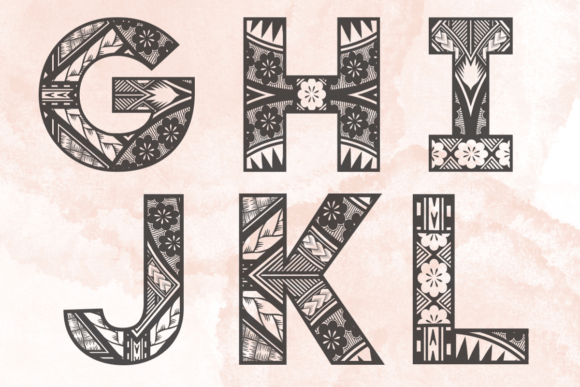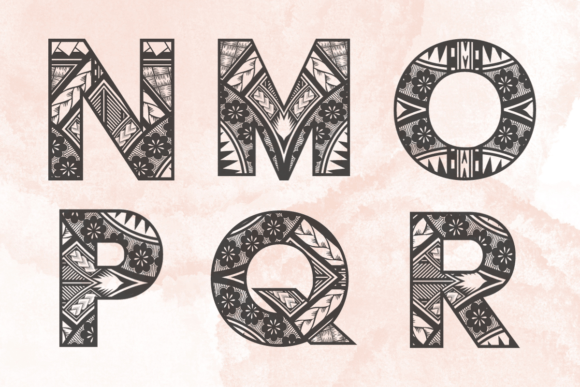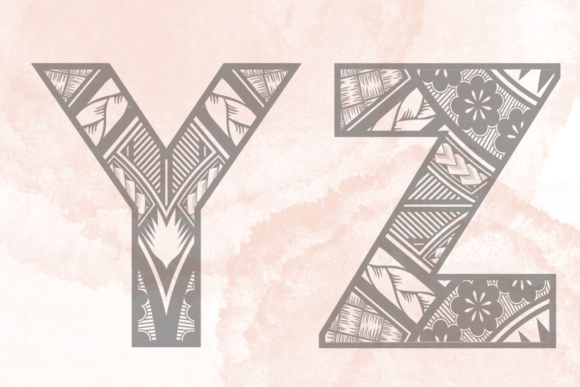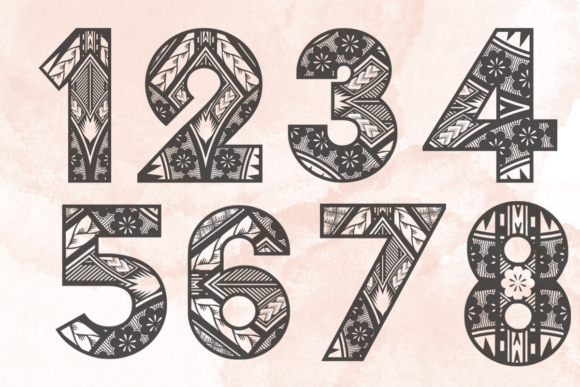
Introduction to Polynesian Tribal Font
Have you ever been working on a creative project and stumbled upon the perfect design element that elevates your entire concept? For designers, this moment can be a game-changer. It’s the spark that ignites a new idea, the missing piece that ties everything together. For me, this moment came when I discovered the Polynesian Tribal Font – a stunning, bold typeface that captures the essence of Pacific Island cultures.
The Polynesian Tribal Font is more than just a design resource; it’s a key to unlocking a world of creative possibilities. With its high-quality, intricately carved shapes and patterns, this font is perfect for designers looking to add a touch of Polynesian flair to their projects. Whether you’re working on a travel brochure, a website, or a social media campaign, this font is sure to make your design stand out. And the best part? It’s available for free download, making it an invaluable asset for any designer looking to elevate their creative projects.
As a valuable design resource, the Polynesian Tribal Font is ideal for designers who want to add a unique and exotic touch to their work. With its transparent background and versatile design, this font can be used on a variety of creative projects, from logo designs to web graphics. And with its high-quality design, you can rest assured that your project will look professional and polished. So why not give the Polynesian Tribal Font a try and see the impact it can have on your next creative project?
Key Features of Polynesian Tribal Font
- Unique Tribal Design: The Polynesian Tribal Font is designed to resemble traditional Polynesian tattoos, making it perfect for creative projects that require a touch of cultural authenticity.
- Wide Character Set: The Polynesian Tribal Font includes a wide range of characters, including uppercase and lowercase letters, numbers, and special symbols, making it a versatile design resource.
- Perfect for Creative Projects: With its unique tribal design, this font is ideal for creative projects such as graphic design, web design, and visual arts.
Honest Review: Polynesian Tribal Font
I recently had the opportunity to use the Polynesian Tribal Font in a creative project, and I must say it’s been a great addition to my design resources. The high quality of this font is undeniable, and it adds a unique touch to any design.
One of the standout features of this font is its versatility. It can be used for a wide range of creative projects, from print to digital designs. The transparent background option also makes it easy to customize and use in different design elements.
Here are some of the things that work well with the Polynesian Tribal Font:
- Unique and exotic design that adds a touch of cultural flair to any project
- High quality and crisp typography
- Limited character set and support for non-ASCII characters
Overall, I’m impressed with the Polynesian Tribal Font and would recommend it to designers looking for a unique and high-quality design resource. While it may have some limitations, it’s definitely worth considering for your next creative project.
Tips for Getting the Most Out of Polynesian Tribal Font
Use the font in combination with other design elements to create a cohesive look. Experiment with different font sizes, colors, and styles to add depth and interest to your design.
The Polynesian Tribal Font is ideal for use in creative projects such as tribal-themed designs, cultural events, and travel brochures. It’s also a great resource for designers looking for a unique and authentic font for their designs.